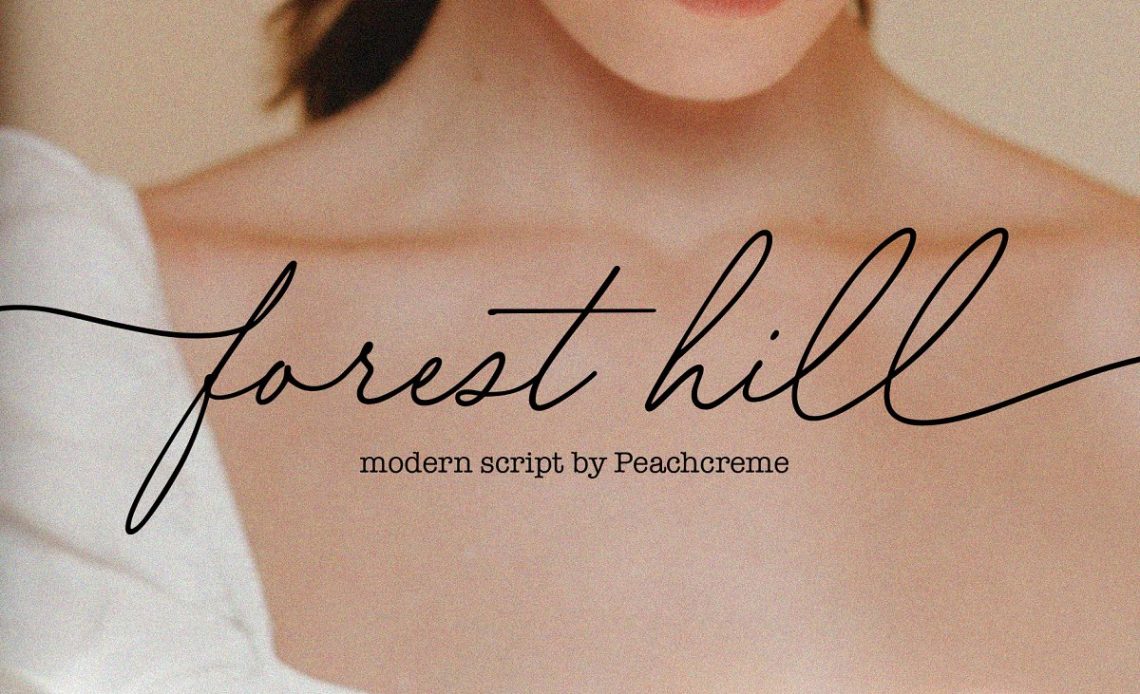
Introducing Forest Hill, the modern script font that will elevate your designs to new heights! Created by PeachCreme, this font is perfect for modern websites and will make your projects stand out from the crowd.
Forest Hill is not your ordinary script font - its unique feature lies in the seamless connection between letters, creating a harmonious and captivating piece of writing. With its easygoing letters, numerals, and punctuation, this font exudes a casual yet sophisticated vibe that is sure to impress.
But that's not all! Forest Hill also boasts fabulous beginning and ending lowercase swashes, adding a touch of elegance to your designs. Inspired by clean handwriting with a natural flow, this font is a versatile choice for a wide range of projects. From wedding stationery to Instagram quotes, modern logos, packaging, and websites, Forest Hill will add a touch of charm and originality.